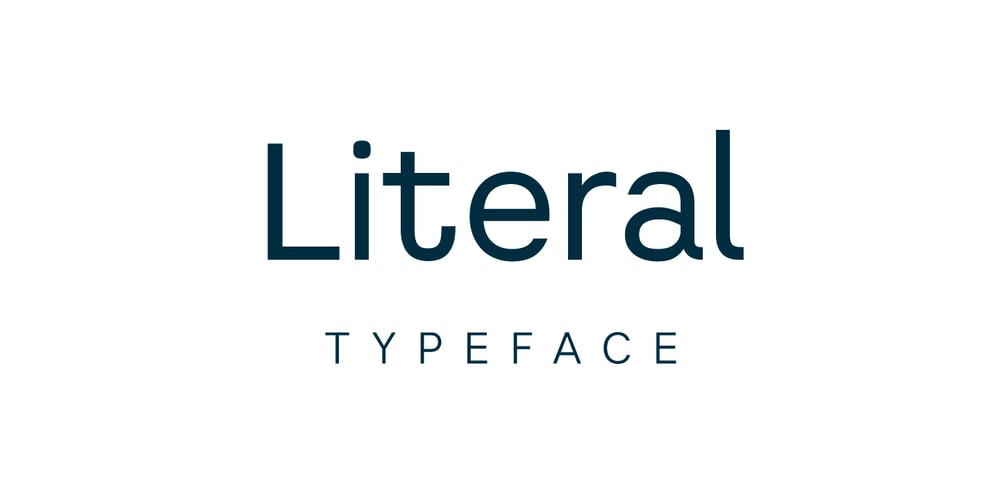
Literal
Literal font
Literal Font Family was designed by Igor Kosinsky and published by Kosinsky. Literal contains 3 styles and family package options. Literal is a classic sans serif typeface with closed shapes. Simple and elegant at the same time, it is perfect for a wide range of uses, where you need both large and small text, be it a print product, website design, logo design and much more.The font supports Extended Latin and Extended Cyrillic.Created in 2019.Type designer Igor Kosinsky.